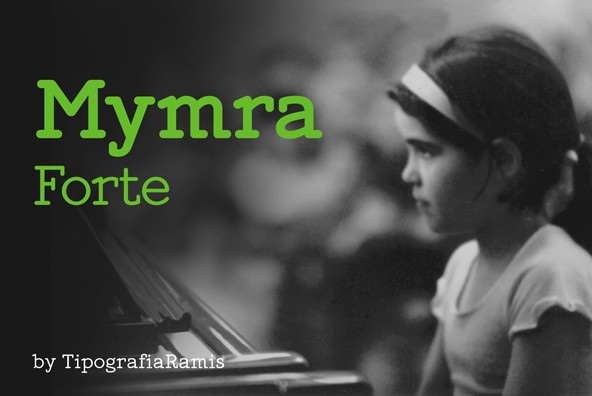
Mymra Forte Font
Mymra Forte Font is perfect for bold musical branding, dramatic concert promotions, powerful entertainment logos, dynamic theater signage, strong sports marketing, impactful poster design, commanding web typography, and intense advertising campaigns. This forceful typeface works magnificently in both digital applications and print media where musical intensity and dramatic power are paramount design considerations.
What makes Mymra Forte Font so exciting is its powerful interpretation of musical forte dynamics through bold letterforms that seem to resonate with the commanding energy of orchestral crescendos and dramatic performances. The font features strong, confident characters with dramatic proportions, powerful stroke weights, and musical spacing that creates an immediate sense of intensity and artistic passion. Its commanding personality and musical inspiration make it ideal for brands seeking to communicate artistic excellence, dramatic impact, and the overwhelming power of live performance while maintaining excellent readability and professional appeal.
The Mymra Forte Font family includes multiple weight variations from bold to ultra-black, along with dramatic alternates and musical ornamental elements. Each style maintains the typeface's forte character while offering comprehensive character sets including powerful numerals, music-inspired punctuation marks, and special symbols designed to enhance entertainment communications and dramatic branding efforts across various performance contexts.
This remarkable typeface represents the perfect fusion of musical dynamics and contemporary display typography for entertainment and creative industries. Whether you're developing concert venue identities, creating theatrical marketing materials, or designing music festival graphics, Mymra Forte Font Free Download delivers the dramatic intensity and versatility needed to captivate performance-loving audiences. The font's musical heritage makes it particularly effective for orchestras, theater companies, music venues, and businesses celebrating the power of live entertainment and artistic expression.
The meticulously crafted forte construction and optimized dramatic performance in Mymra Forte Font ensure maximum musical impact while maintaining clear communication across all entertainment applications. Its commanding presence makes it perfect for concert titles, theatrical branding, and dramatic communications where its full forte character can create unforgettable impressions and establish immediate association with musical excellence and theatrical magnificence.